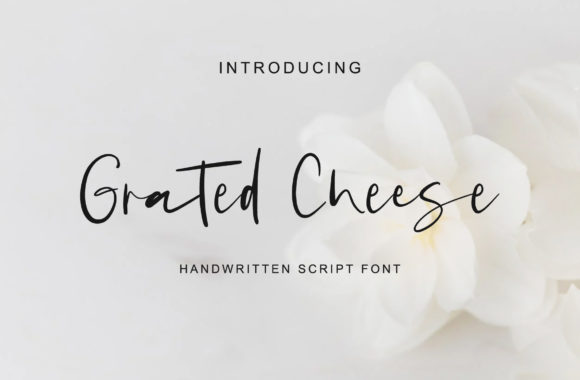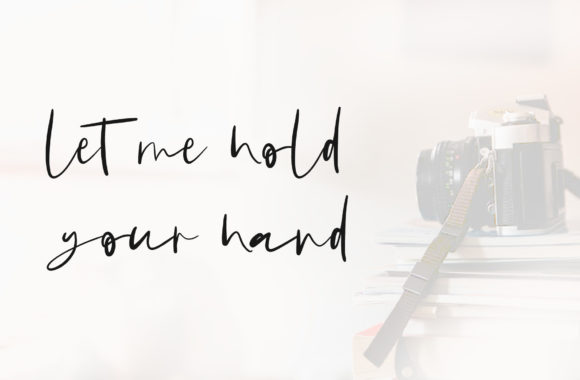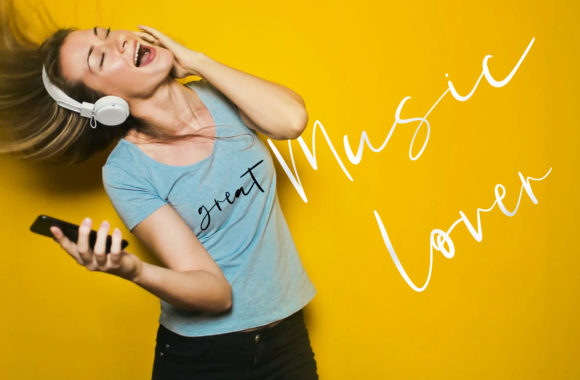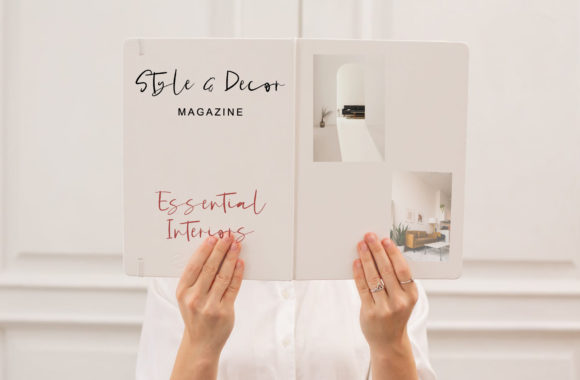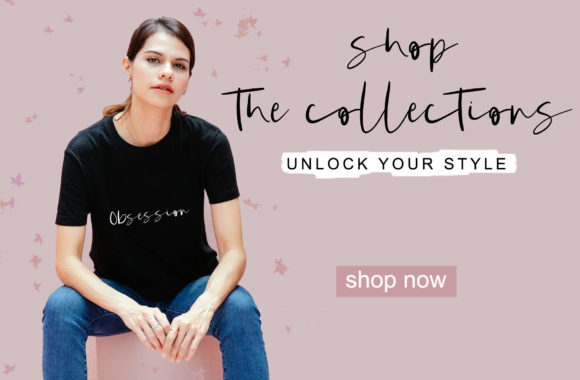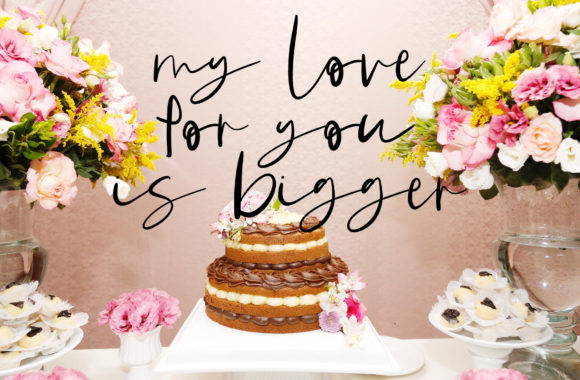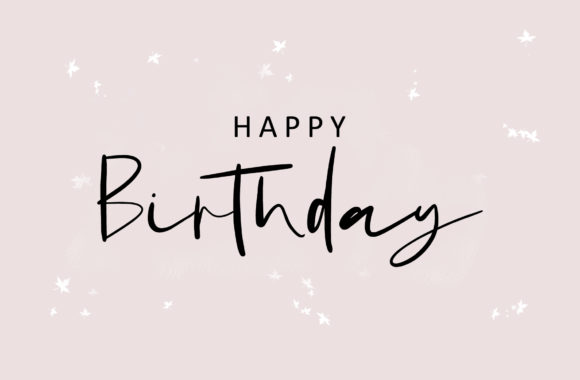
Grated Cheese Font
About Grated Cheese Font
Grated Cheese is a thin lettered and graceful script font. Fall for its ravishing style and use it to create gorgeous wedding invitations, beautiful stationary art, eye-catching social media posts, and much more!